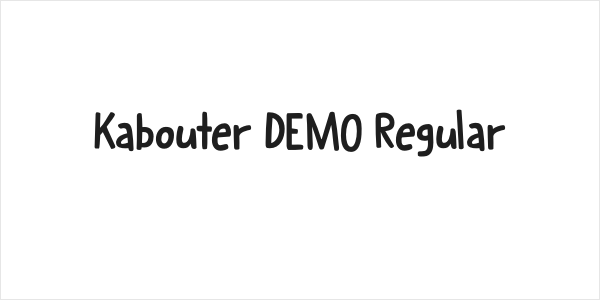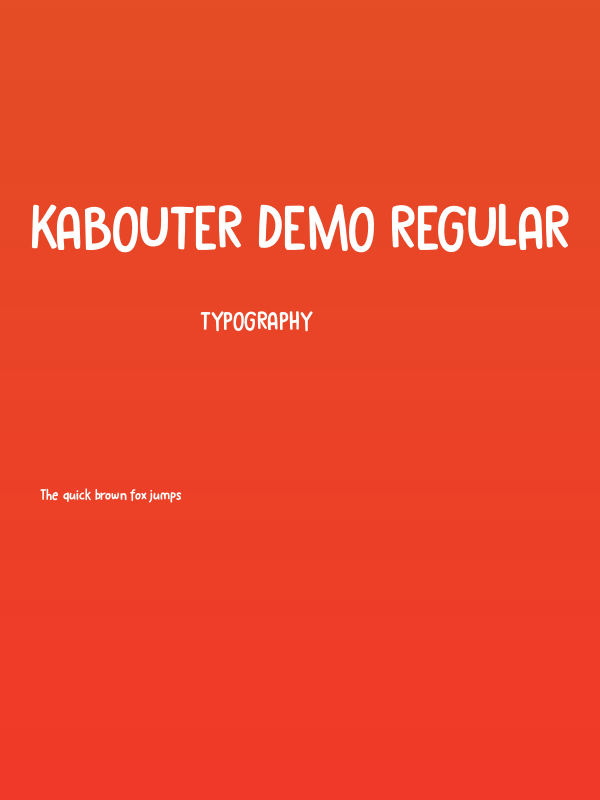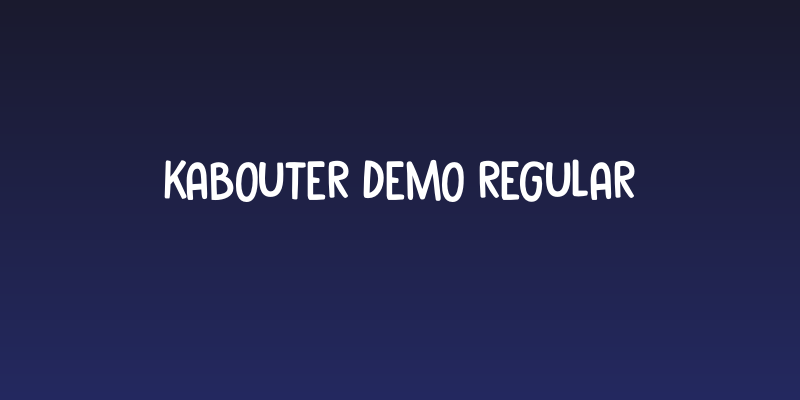
Kabouter DEMO Regular Font
Kabouter DEMO Regular Description
This playful and whimsical font features bold, rounded characters with a hand-drawn appearance. The uppercase and lowercase letters are consistent in style, with a slightly uneven baseline that adds to its charm. The numbers are equally playful, maintaining the same rounded and bold aesthetic. Special characters include quirky illustrations of gnomes, adding a unique and fun element to the font. The overall style is casual and friendly, making it ideal for projects that require a lighthearted and approachable feel.
| Overall Style | Whimsical, Playful |
| Proposed Projects | Ideal for children's books, playful branding, greeting cards, and creative posters. |